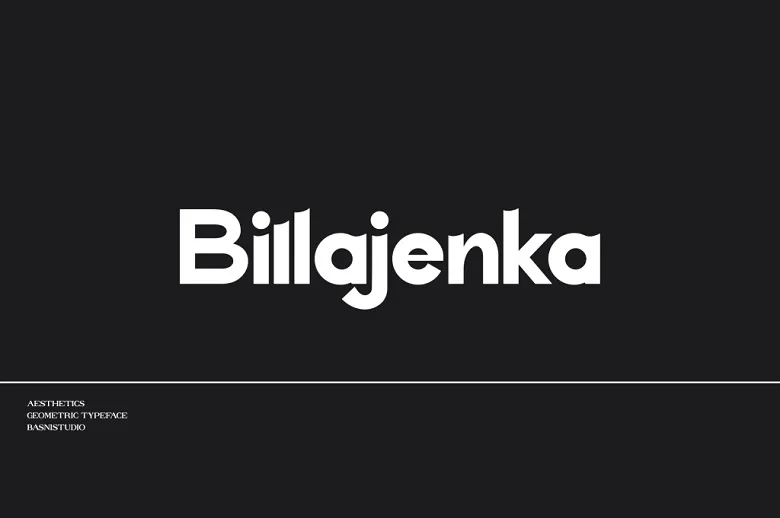
Billajenka Font is an aesthetics geometric sans serif font, created with Precision, ideal for branding, websites and editorial designs. Thus, it covers all the Characters’ letters, multilingual support, punctuation, and binding. almost all is achievable when working with software that implements OpenType.